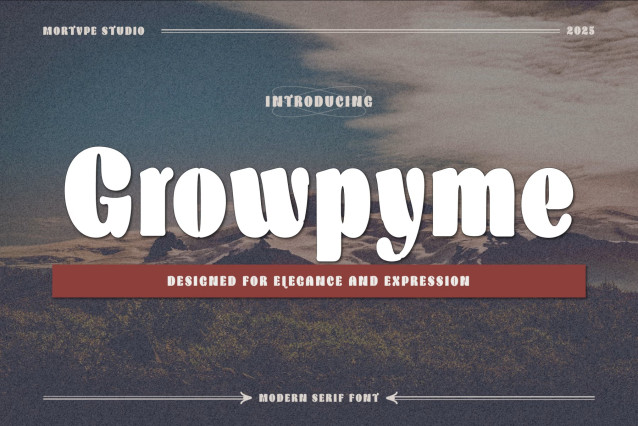
Growpyme Font
Growpyme Font, perfectly fit for branding, logo, wedding things, greeting cards, fashion, lookbook, marketing promotion, anytime you want to look fancy elegant but still casual.